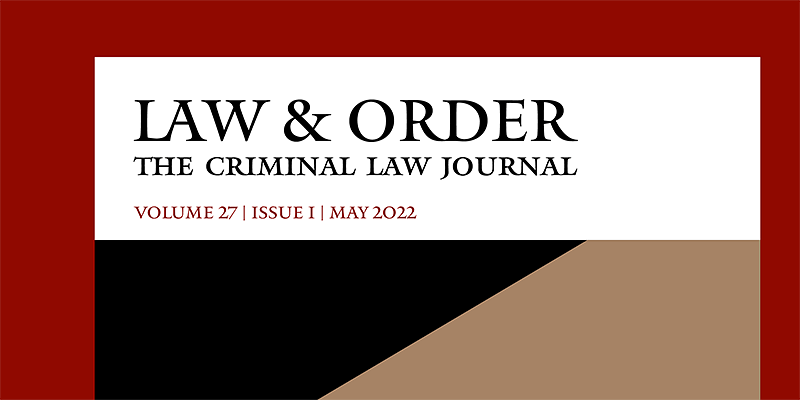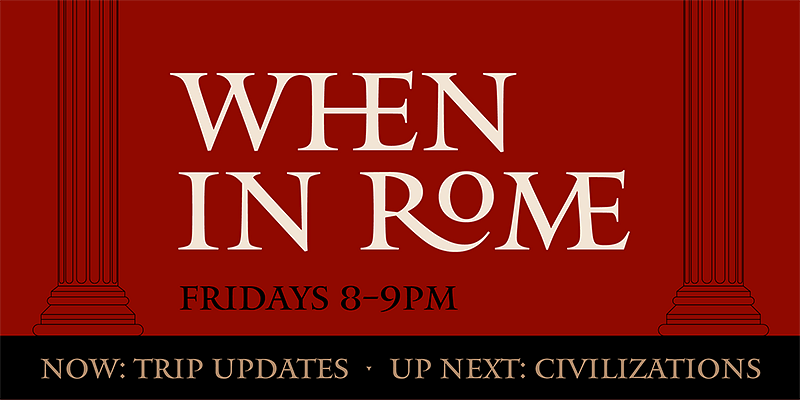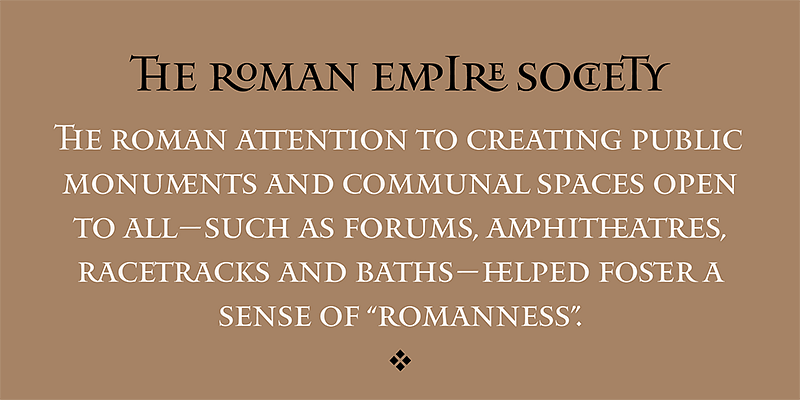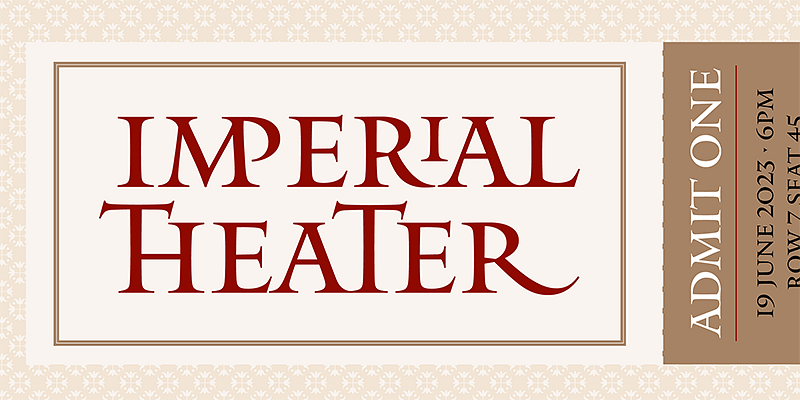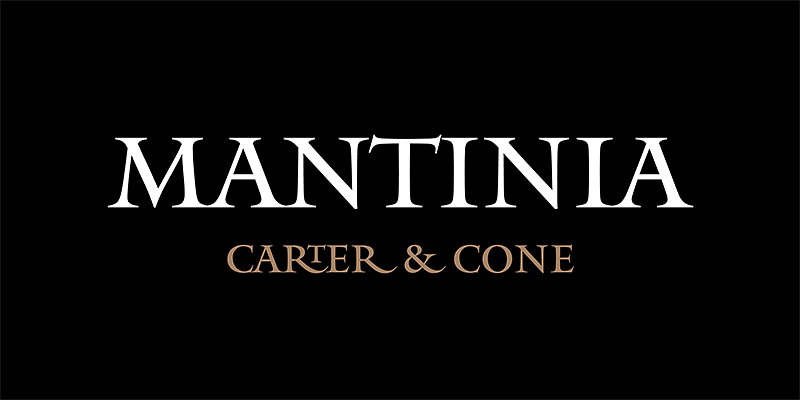
Carter & Cone
Carter & Cone has designed some of the world’s most celebrated typefaces and award-winning custom fonts. Elegant, balanced, useful: these words describe the fonts produced by Matthew Carter and Cherie Cone’s partnership. While their early work forms the bedrock of modern typography, their newer typefaces continue to enrich and expand it. The consistency and thoroughness of their designs are a direct result of their early training in industries without an undo, like punchcutting and calligraphy.